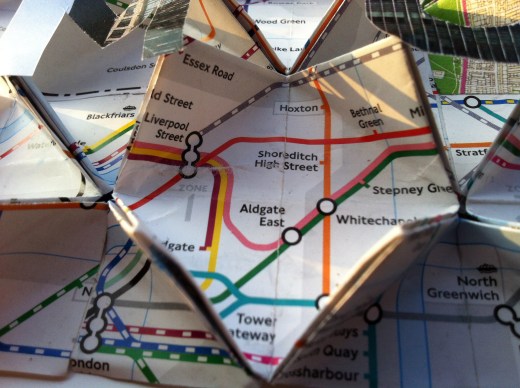
Multitudinal by Hedy Parry-Davies
Parry-Davies’ piece for Type Tasting explores the ways we experience the River Thames through a combination of the maps we use to navigate our way around the city—via the Underground, cycling, walking and driving. The different maps show the overview of the city both present and past, and also link us to the personal experience of existing within it. “Maps express a wide range and detail of information efficiently and in a form which I find beautiful. My tessellated origami enabled me to inter-weave all these elements to create an artwork.”
“I am a practising architect and my interest in this profession originates from my preoccupation with design and the crafts that contribute to the construction of buildings. My specialism in the conservation of historic buildings has provided opportunities to discover the traditional craft and decorative skills used in masonry, timber, leadwork, plasterwork and slating, amongst others, and has also involved me in the application and the commissioning of these specialist skills.
“In my tessellation work I like to use redundant materials, maps, manuscripts and other papiér trouvé. I combine these two-dimensional images to craft three-dimensional works of art experimenting with the tensions between content and form. The paper construction allows for both continuity and concealment of the detail which creates intrigue and invites exploration. The juxtaposition of different and repetitive geometric forms contibutes to the overall composition.
Multitudinal by Hedy Parry-Davies is one of the words that will be displayed at Type Tasting with the London Design Festival 2013 at the V&A.